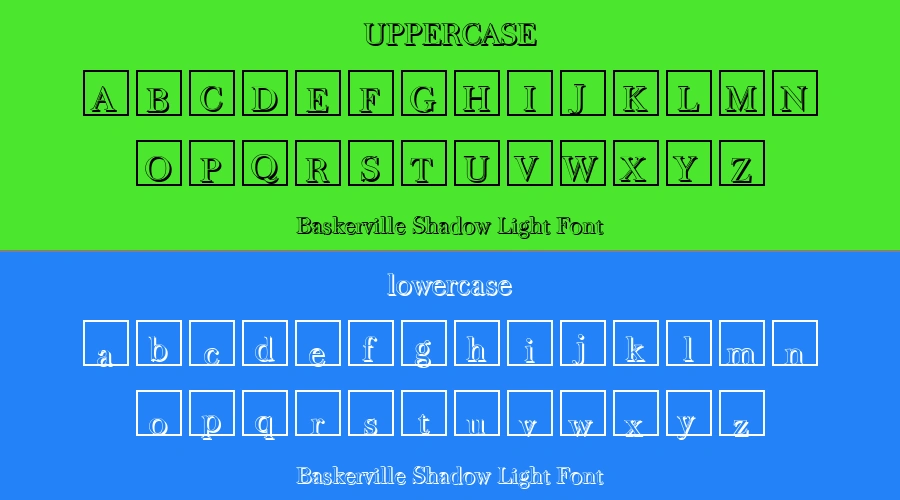
About Baskerville Shadow Light Font
Designed with precision, Baskerville Shadow Light Font merges humanist proportions with adaptability in every character. This versatility makes it particularly effective for book design, where longevity and cultural relevance directly impact communication quality. Each letterform demonstrates meticulous craftsmanship.
Technical excellence shines through elements like geometric construction and multiple weights, enhancing typographic versatility. In running text settings, Baskerville Shadow Light Font proves its worth through superior print fidelity. The thoughtful execution of terminal angle and design lineage ensures professional results.